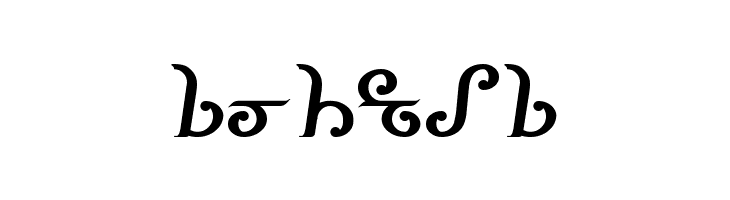
An elegant script font with flowing, decorative swashes and loops.
A whimsical, cursive script font with elegant loops and fluidity.
An elegant, flowing script font with intricate loops and swashes.
A graceful script font with flowing, cursive strokes and elegant loops.
A flowing, cursive script font with elegant loops and swashes.
A flowing, cursive script with elegant loops and a modern touch.
A graceful script font with elegant loops and swashes, ideal for sophisticated designs.
An elegant, flowing script font with intricate loops and high contrast.
A flowing, elegant handwritten font with artistic curves and loops.
A decorative cursive font with elegant loops and swashes, offering a sophisticated handwritten style.
A bold, dynamic script font with elegant loops and swashes.
A graceful, cursive font with elegant loops and swirls.
A flowing, cursive script with elegant loops and dynamic contrast.
A flowing, cursive script font with elegant loops and swashes.
A decorative cursive font with elegant loops and swashes.
An elegant, flowing script font with intricate loops and swirls.
A flowing, cursive script font with elegant loops and swirls.
A whimsical and elegant script font with playful loops and swirls.
An elegant and decorative script font with intricate swirls and loops.
An elegant script font with flowing loops and swirls.
An elegant script font with intricate loops and swirls, perfect for sophisticated designs.
An elegant and flowing script font with decorative loops and swashes.
An elegant, flowing cursive font with intricate loops and decorative swirls.
A whimsical, decorative font with intricate curls and loops, perfect for fairy-tale themes.
An elegant, cursive font with intricate loops and swashes.
An artistic, cursive-like script with decorative swirls and loops.
An elegant, flowing script font with graceful curves and loops.
A whimsical and elegant script font with sweeping curves and playful loops.
A flowing, elegant script font with intricate loops and flourishes.
An elegant, flowing script font with high contrast and graceful loops.
An elegant and decorative script font with intricate loops and flourishes.
A flowing, elegant script font with intricate loops and high contrast.
A whimsical, decorative font with playful curls and loops.
An elegant, decorative script font with intricate swirls and loops.
A whimsical and elegant script font with intricate loops and swirls.